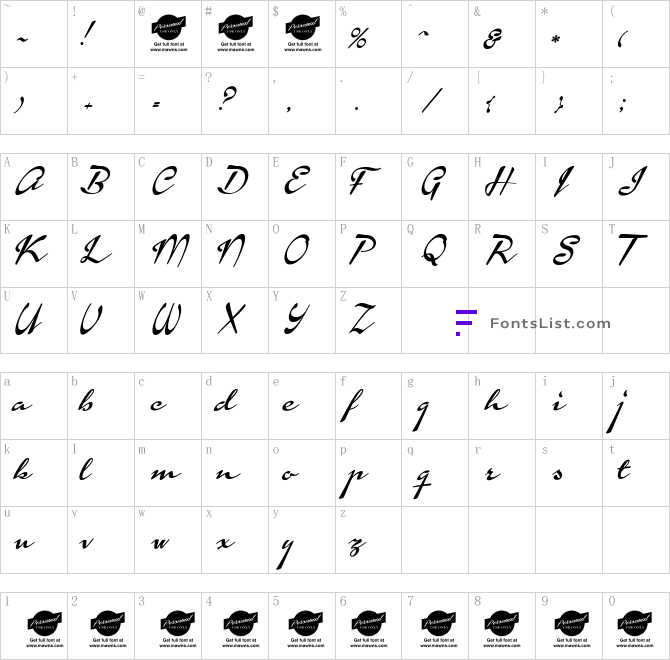
• Font Name:Calendary Hands PERSONAL USE DE
• Full Name:Calendary Hands PERSONAL USE DEMO
Calendary-Hands-PERSONAL-USE-DEMO.ttf is a very beautiful artistic font, Calendary-Hands-PERSONAL-USE-DEMO.ttf is widely used in the design and printing of various books and pictures,Calendary-Hands-PERSONAL-USE-DEMO.ttf has a strong visual impact,Calendary-Hands-PERSONAL-USE-DEMO.ttf is a commonly used font in newspapers, magazines and books, and is used in posters, e-commerce Poster design, store design, logo design, font design and other fields.Calendary-Hands-PERSONAL-USE-DEMO.